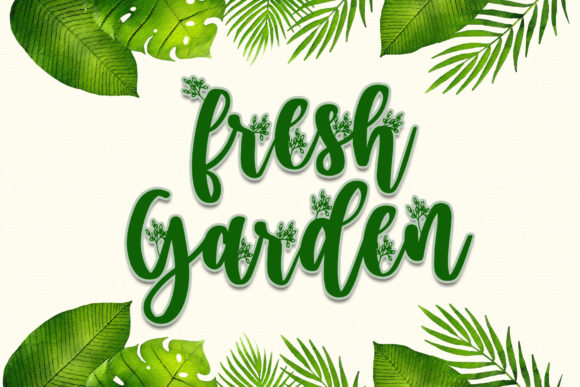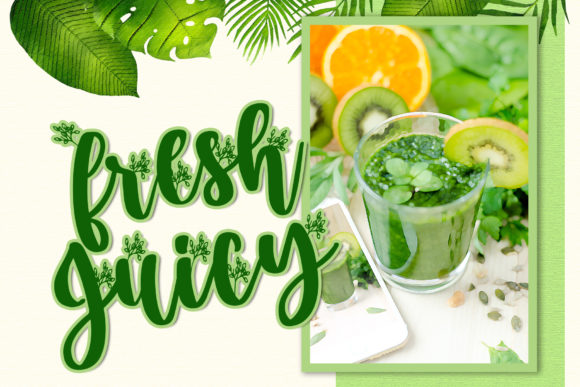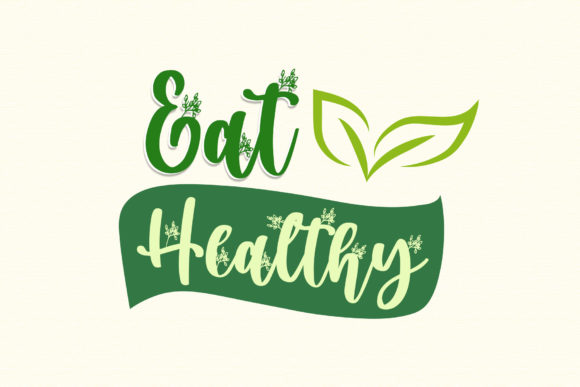
Introduction to Secret Nature Font
Remember that moment when you finally decide to take your creative project to the next level? Perhaps it was a late-night brainstorming session, surrounded by scattered papers, glue sticks, and a cup of lukewarm coffee. The idea was there, but the perfect visual element was missing. That’s when you stumbled upon the Secret Nature Font – a game-changing design resource that elevates any creative project into a stunning piece of art.
As a designer, you know the importance of choosing the right font to convey your message. The Secret Nature Font is a high-quality, handwritten script that adds a touch of elegance and sophistication to any design. Whether you’re working on a project that requires a transparent background or a free download, this font is sure to impress.
- High-quality design resource ideal for creative projects and backgrounds.
- Features a transparent background, allowing for seamless integration into various designs.
- Includes a wide range of glyphs, making it suitable for various languages and creative applications.
- Supports high-resolution designs, ensuring crisp and clear text even at large sizes.
- Designed to be versatile and adaptable, perfect for various design projects and creative endeavors.
I recently had the chance to work with the Secret Nature Font, and I must say, it’s been a pleasant experience. This font is a great addition to any design resource collection, offering a unique and elegant touch to creative projects.
One of the standout features of the Secret Nature Font is its high quality and versatility. It works seamlessly on a variety of backgrounds, from transparent backgrounds to busy textures, making it an ideal choice for designers looking for a reliable font.
- Beautiful and elegant design
- High quality and clear typography
- Compatible with a range of backgrounds
However, there are a few limitations to consider: ⚠️
- The font may not be suitable for very small text sizes
- It may not be as bold or dramatic as some other fonts
Overall, I’m impressed with the Secret Nature Font. It’s a solid choice for designers looking for a high-quality, versatile font that’s perfect for a variety of creative projects. I’m happy to have it in my design resource collection.
To get the most out of the Secret Nature Font, use it in conjunction with other high-quality design resources. Experiment with different font sizes, colors, and styles to create a unique and eye-catching design. Use the font in creative projects such as posters, flyers, and business cards.
The Secret Nature Font is commonly used in creative projects such as:
Posters and flyers for outdoor events and activities
Business cards and letterheads for nature-inspired businesses
Brochures and catalogs for eco-friendly products and services